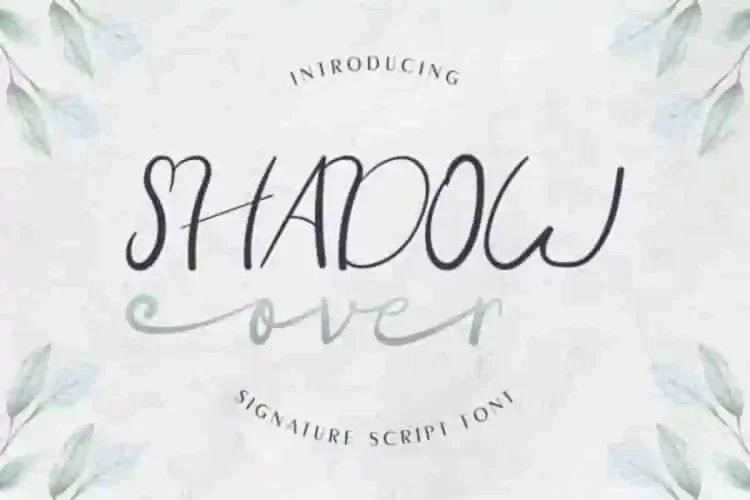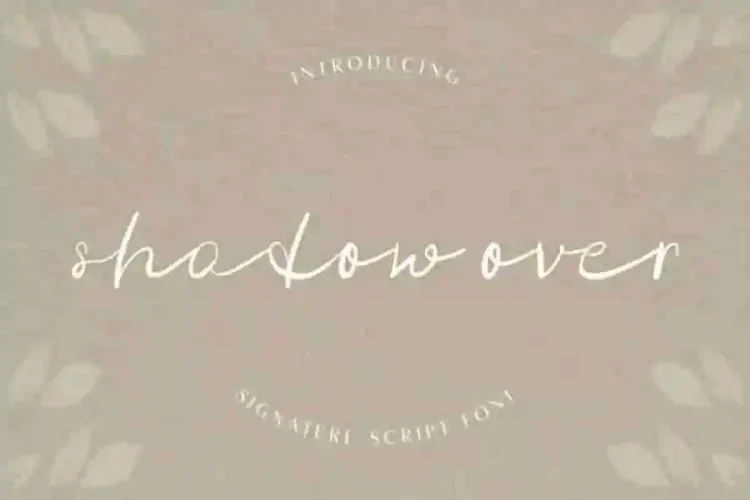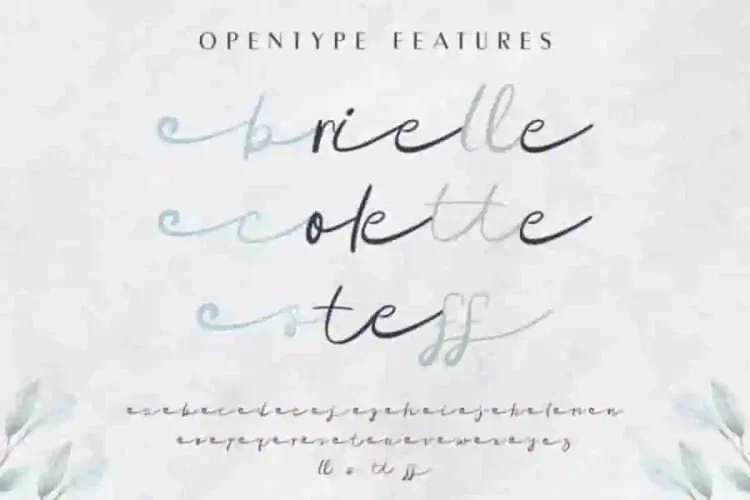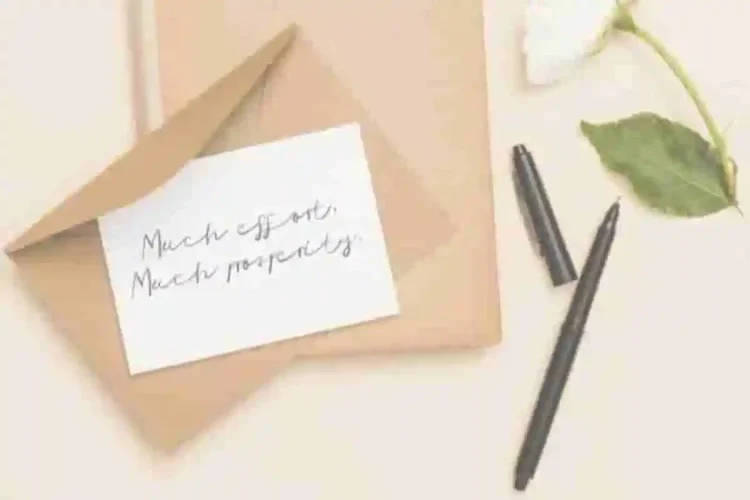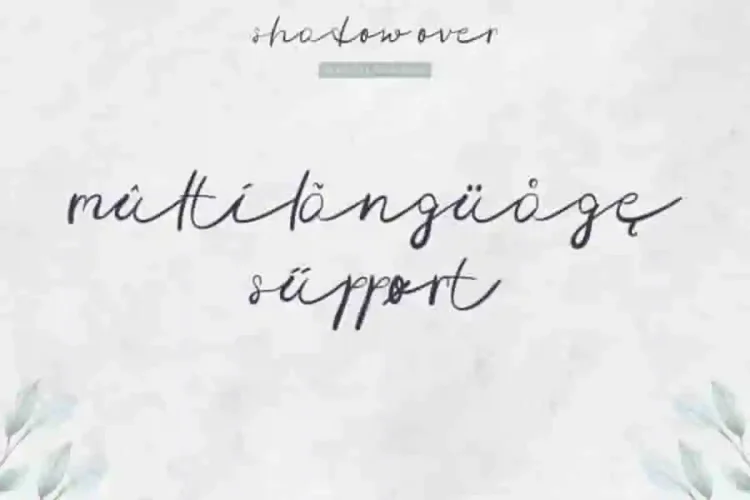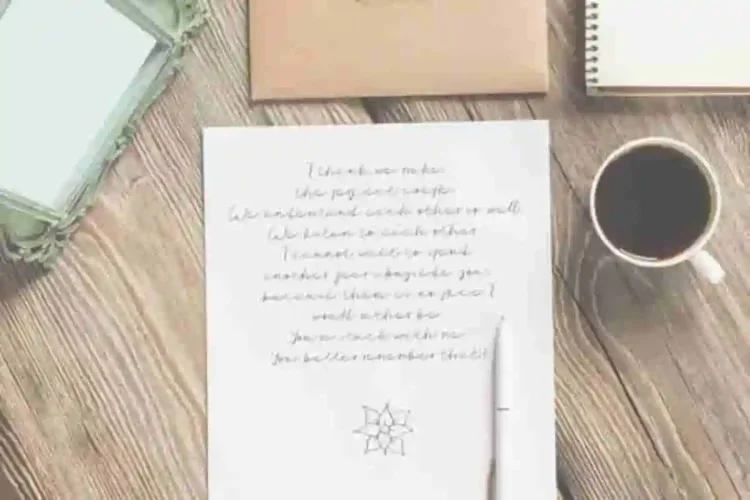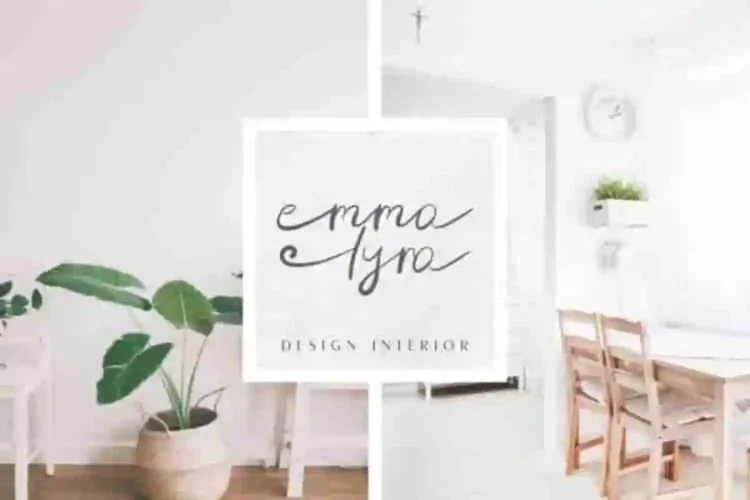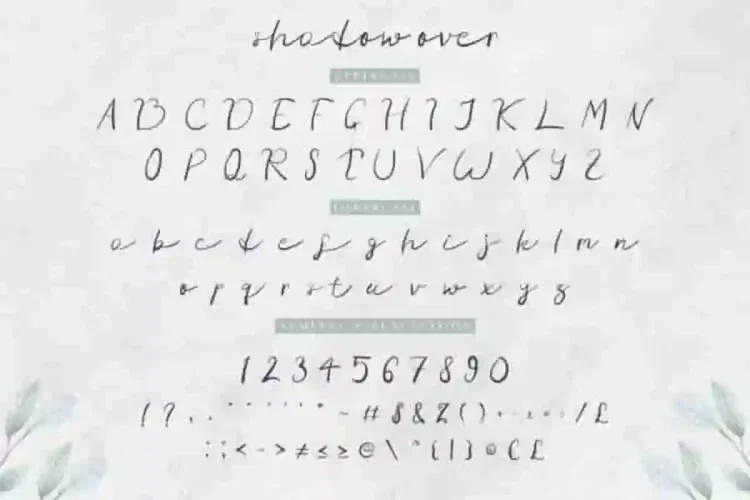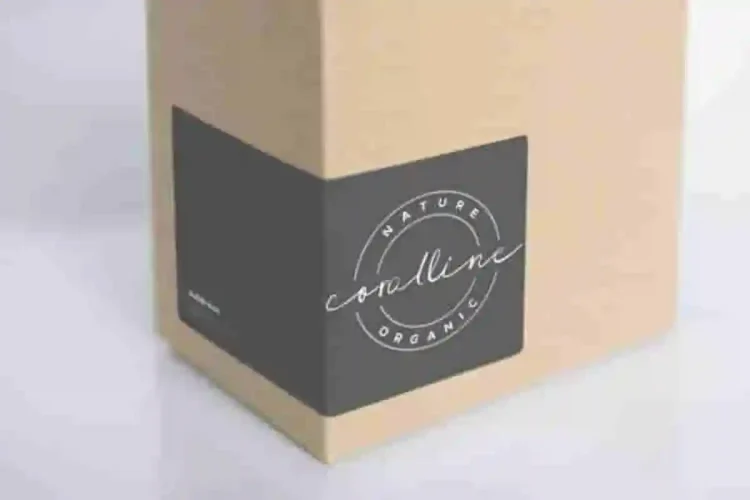
Shadow Over Signature Script Font
Hello, please meet : Shadow Over Signature Script Font
This is a beautiful script signature font, handcrafted from our Studio here in Bandung and Garut- Indonesia. The artists/designers of this beautiful tyeface is Yasri and Sarah Suci.
Shadow Over Signature Script Font is an exclusive brush script typeface with hand style. This font has a great characters set, perfectly managed with well spaced and kerning.
Shadow Over Signature Script Font will be great for any projects including : branding, logo, stationery, business card, signage, flyer, brochure, comic, cartoon etc. Almost all industries will be match for this typeface: wedding, events, real estate, architect, law firm, florist, gardening, makeup artist, travel, hotel, musician etc.